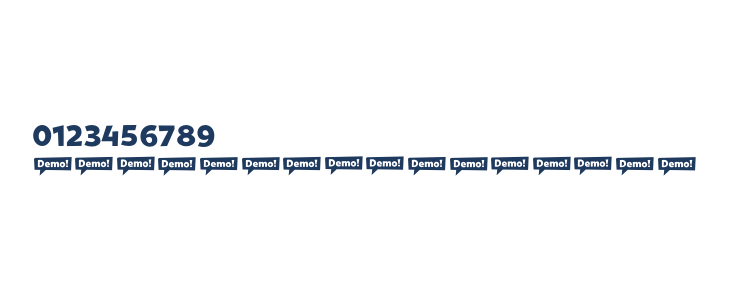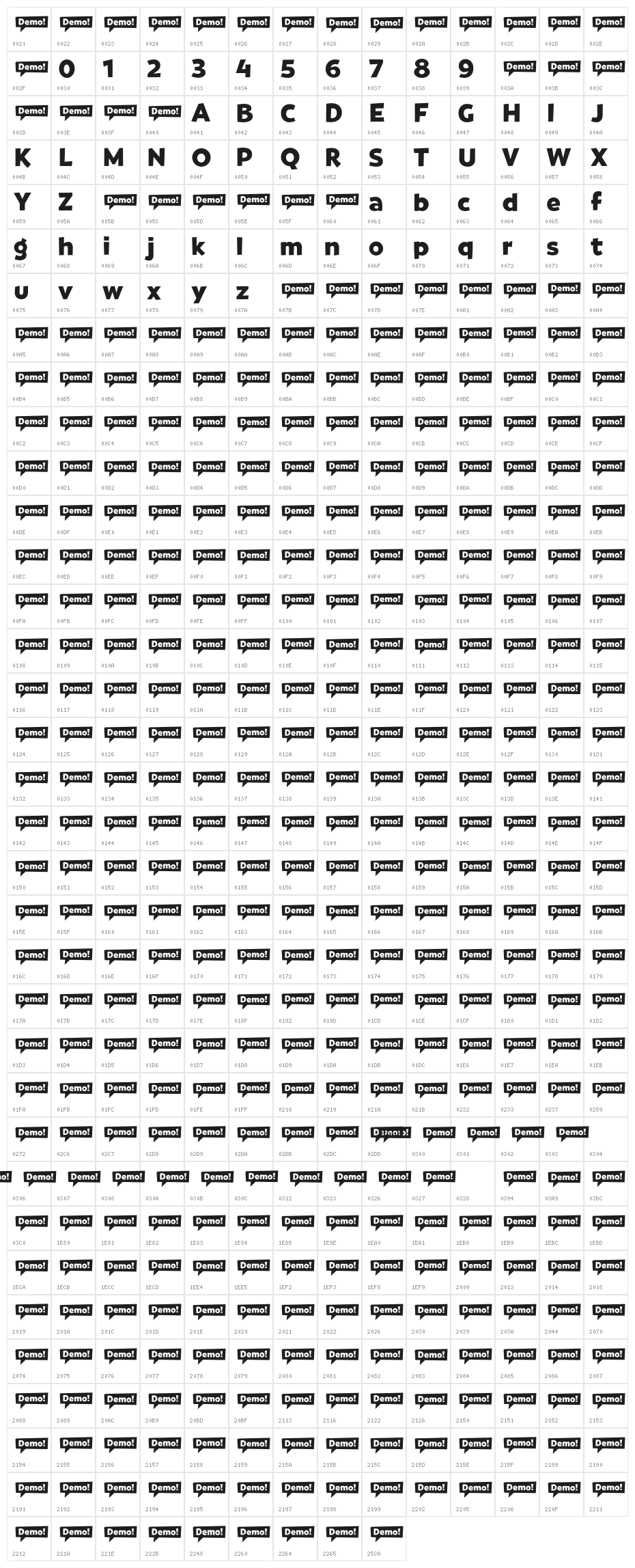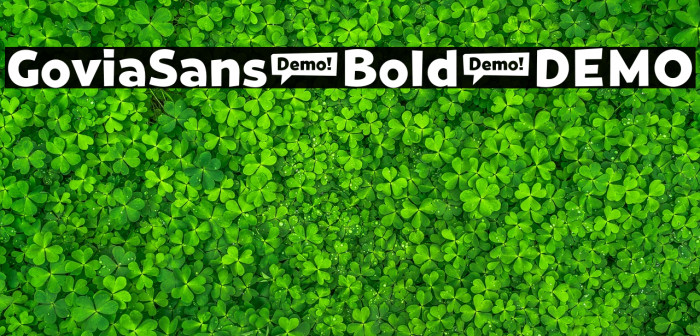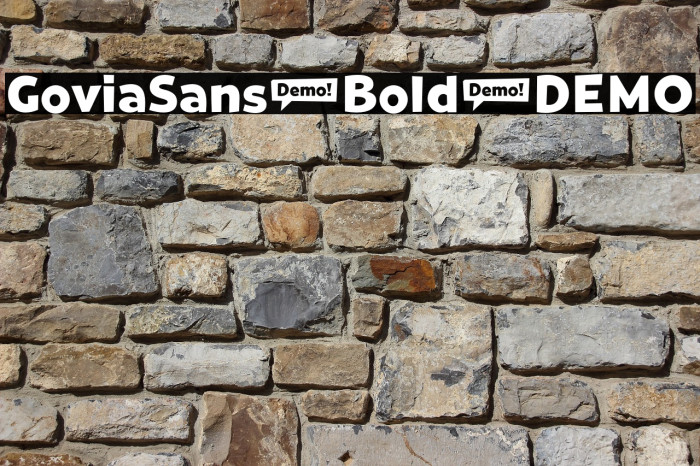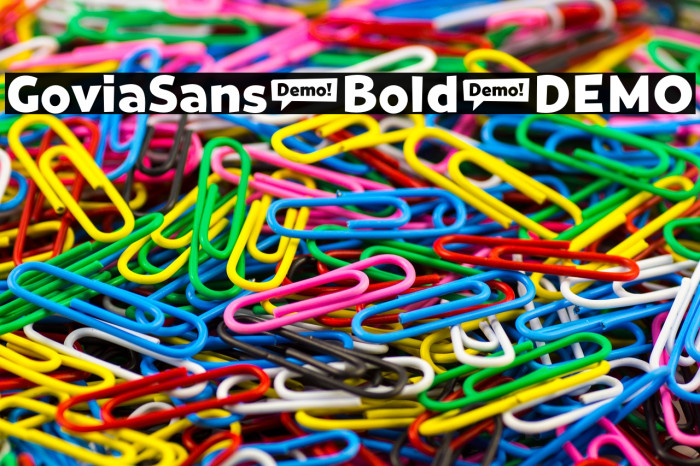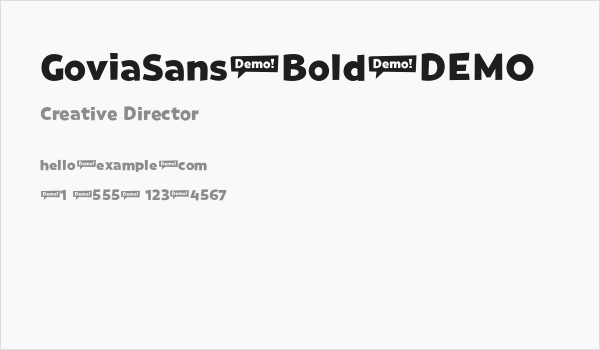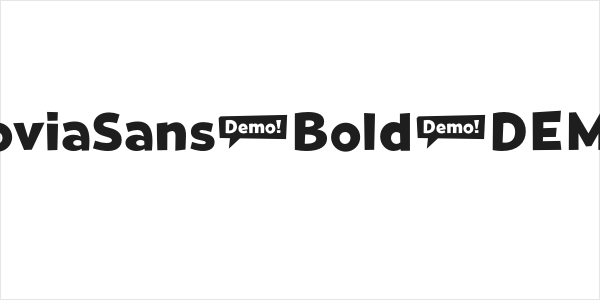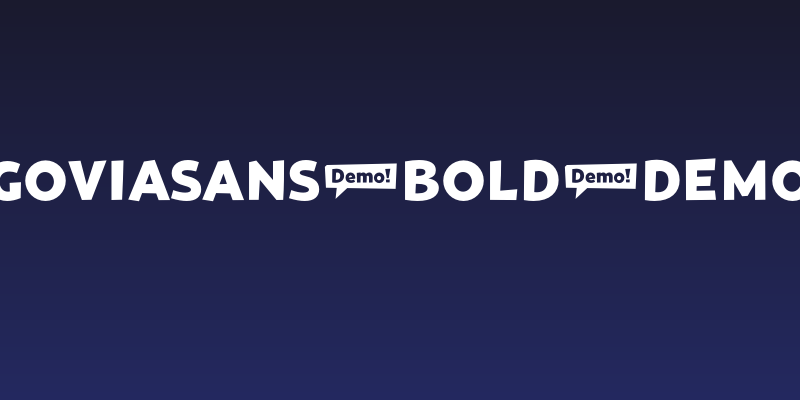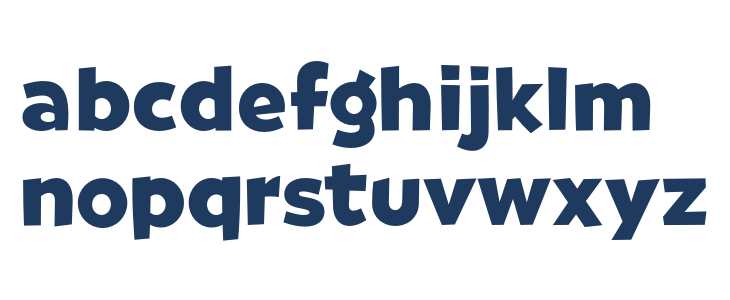
GoviaSans-Bold-DEMO Font
GoviaSans-Bold-DEMO Description
This font features bold, rounded characters with a modern and friendly appearance. The uppercase letters are strong and assertive, while the lowercase letters maintain a consistent thickness, providing a harmonious look. The numerals are clear and easily distinguishable, making them suitable for various applications. The overall design is clean and versatile, with a slight geometric influence that adds to its contemporary feel. The special characters are well-integrated, maintaining the font's cohesive style. This font is ideal for projects that require a bold and approachable aesthetic.
| Proposed Projects | Ideal for branding, advertising, headlines, and digital media projects. |